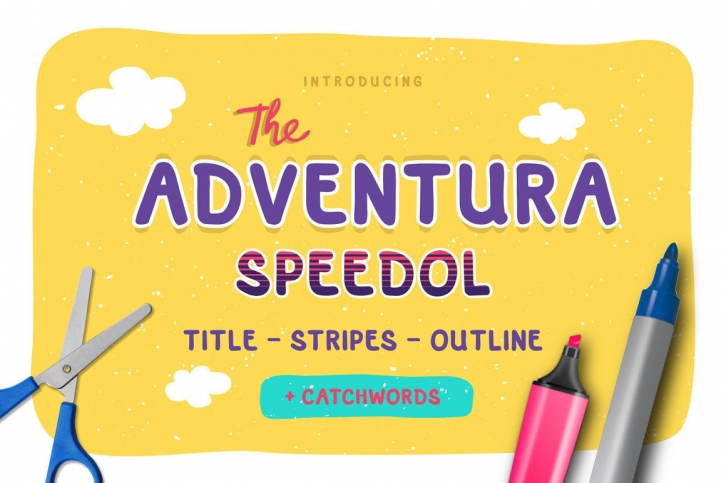
Adventura Speedol
Handmade typeface inspired by permanent marker strokes. Simple, bold and casual shape strokes make this typeface easy to read event for bunch of text. This can be useful for title, quotes, label, etc. Simple but can be playful, including catchwords can gives more personal touch to your design.